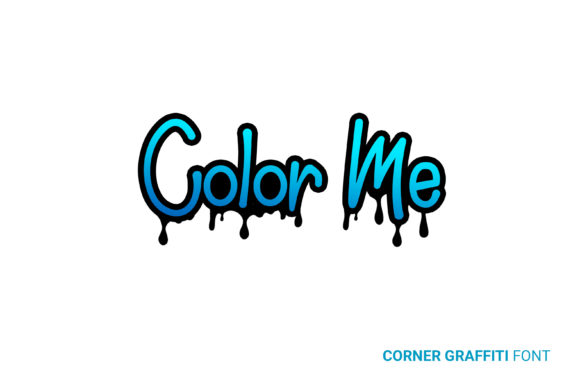
Embark on a typographic adventure with Corner Graffiti, a display font that oozes urban cool and sophistication. Inspired by the vibrant energy of street art, this font captures the raw essence of creative expression, making it a perfect choice for those looking to make a bold statement with their designs.
Unleash your inner artist and let Corner Graffiti take center stage in your next project. Its carefully crafted characters exude a unique charm that will transform your posters, flyers, prints, and digital designs into captivating works of art. Experience the thrill of pushing creative boundaries and captivating your audience with this extraordinary font.
Corner Graffiti isn't just another font; it's a gateway to a world of boundless creativity. Its versatility knows no bounds, allowing you to effortlessly elevate your designs to new heights. From bold headlines that demand attention to intricate details that whisper sophistication, this font adapts seamlessly to your every need.
Picture your designs coming alive with Corner Graffiti's captivating presence. Its urban edge and playful spirit will infuse your work with a sense of authenticity and originality. Whether you're a seasoned designer or just starting out, this font is your key to unlocking a world of typographic possibilities.
With Corner Graffiti, you'll discover a font that not only enhances your designs but also sparks conversations. Its distinctive style and undeniable charisma will leave an unforgettable impression on your audience, making them crave more. Prepare to witness the transformative power of typography as Corner Graffiti takes your designs to dizzying new heights.